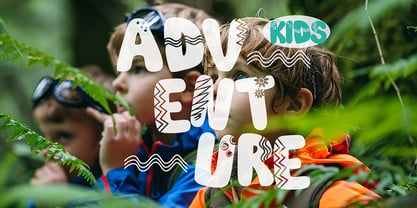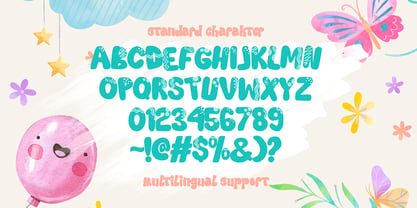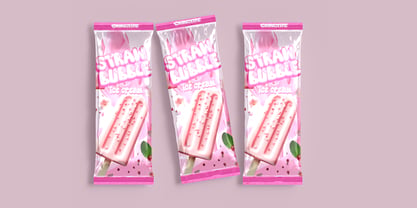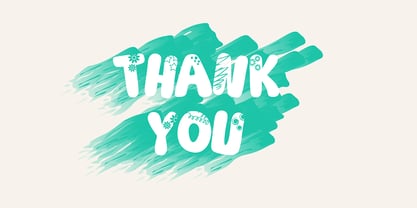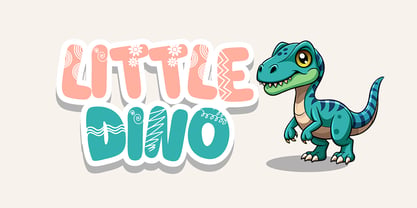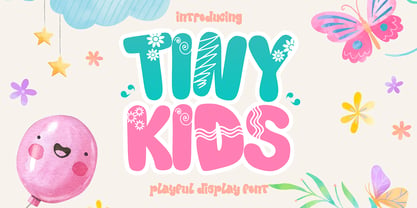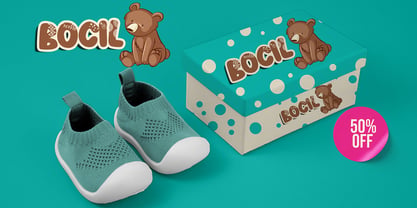
Tiny Kids
The Tiny Kids Font Family was designed by Sipanji and published by Sipanji21. Tiny Kids contains 1 styles. More about this family
Tiny Kids is a delightful, playful display font bursting with charm and energy. With its cheerful curves and childlike spirit, it’s designed to bring fun and joy to any project, making it perfect for children's books, toy packaging, posters, and more!
🎨 Playful Aesthetic: Tiny Kids captures the innocence and creativity of childhood with its soft lines and whimsical letterforms, adding a dash of lightheartedness to your designs.
🖍️ Versatile and Fun: This font’s friendly style is ideal for playful themes, birthday invites, school projects, and more. Tiny Kids makes any message come alive with a warm, engaging feel that appeals to audiences of all ages.
Tiny Kids is not just a font; it’s an invitation to play! Perfect for designers looking to bring a smile and spark joy, Tiny Kids is a fantastic choice for any creative project aimed at young audiences or those young at heart.